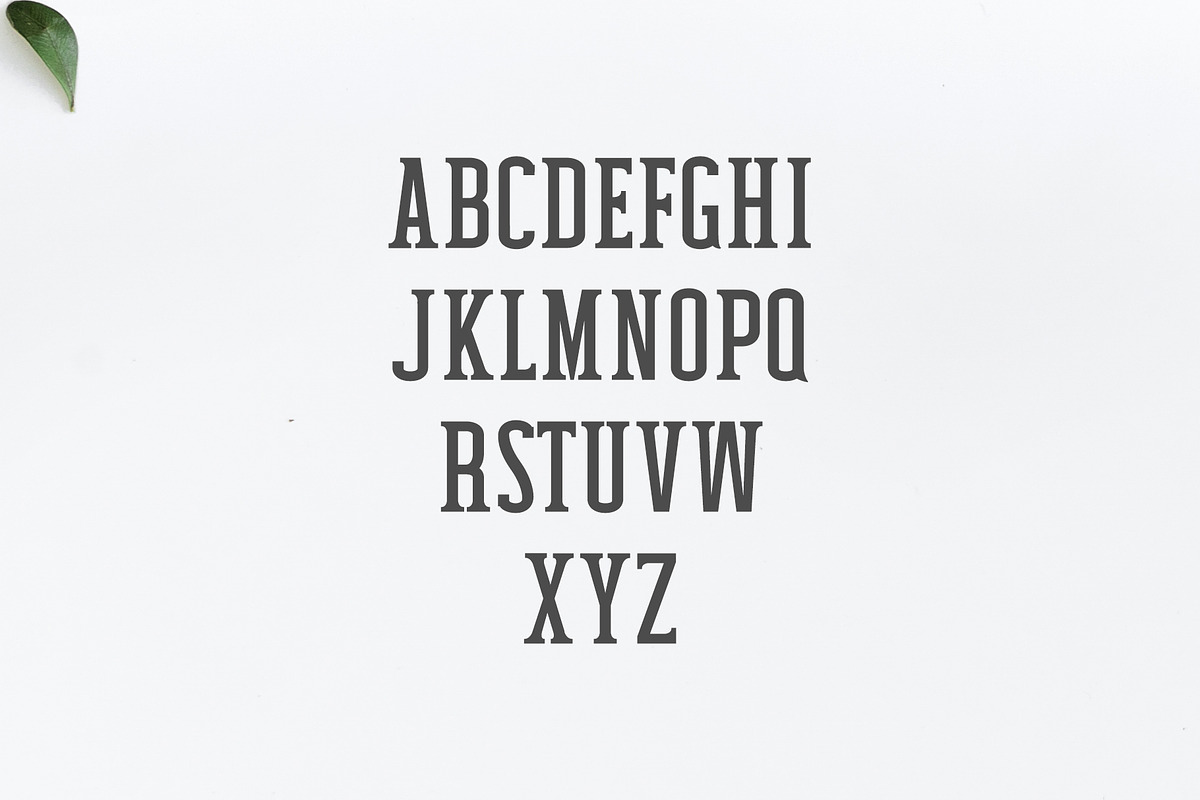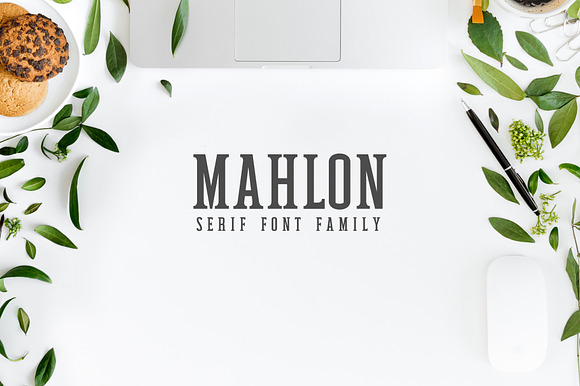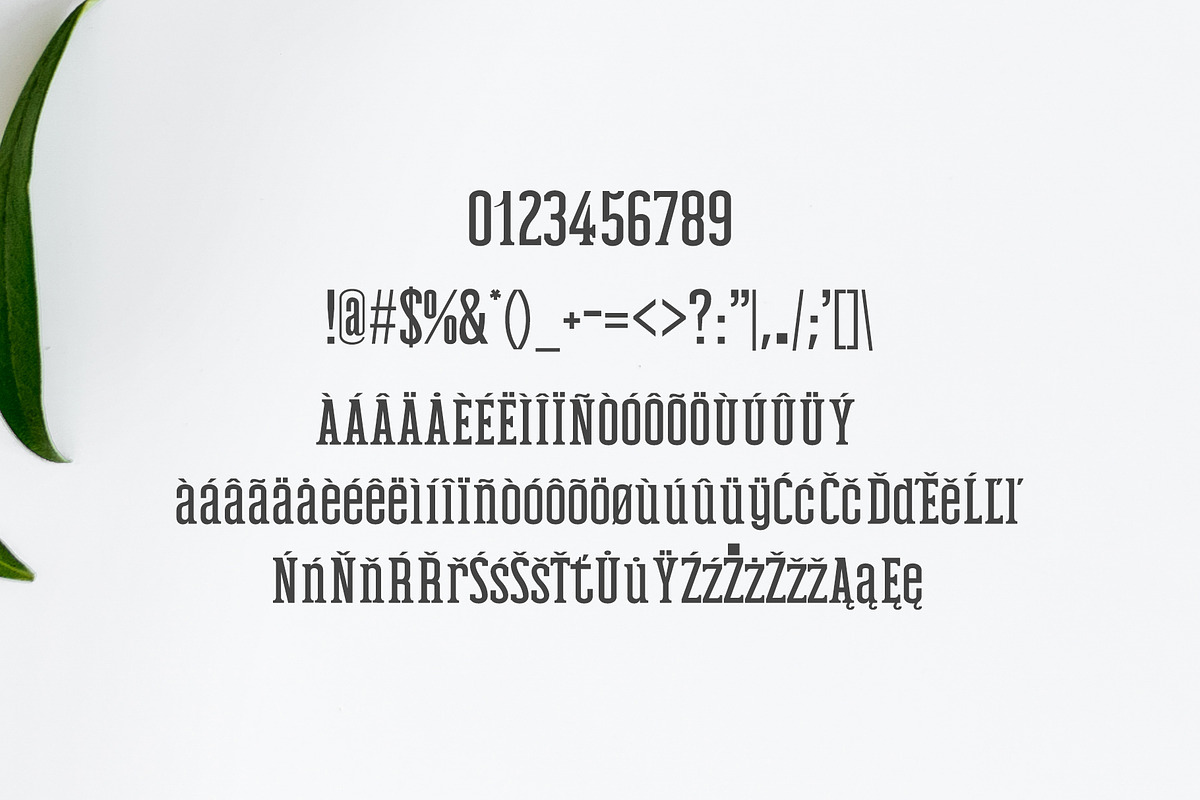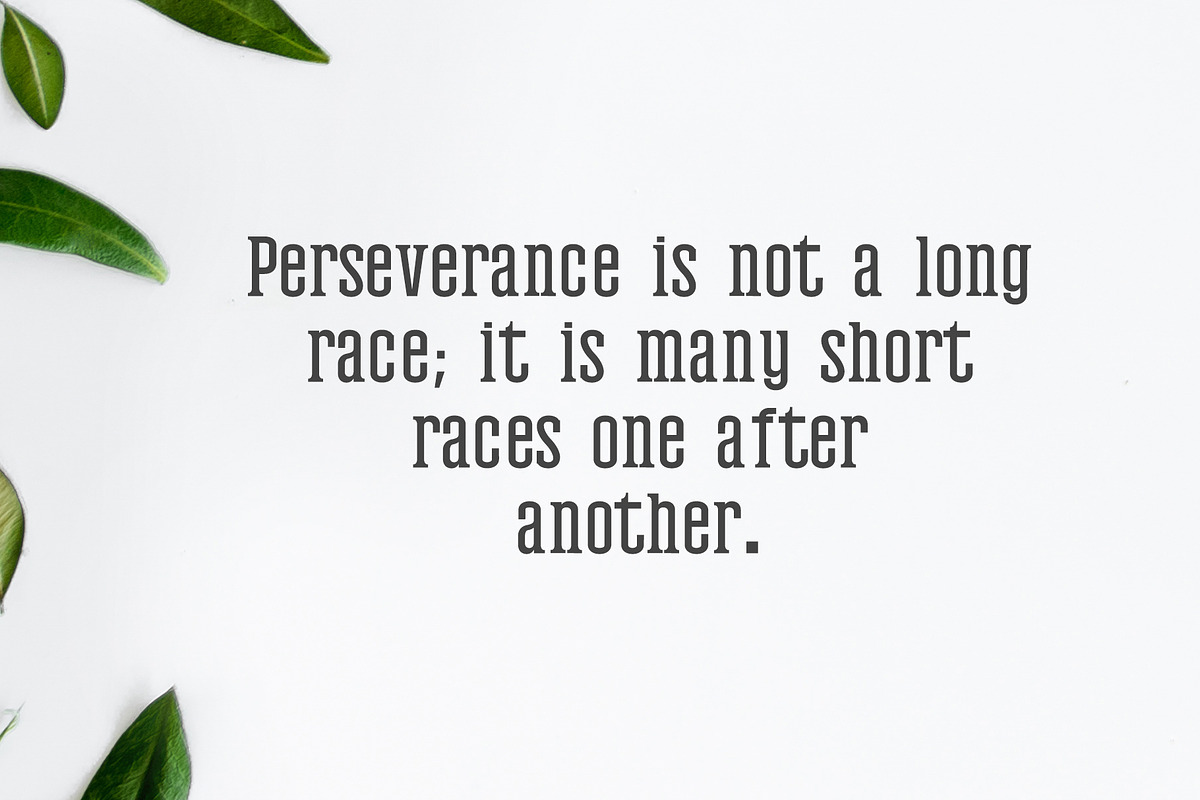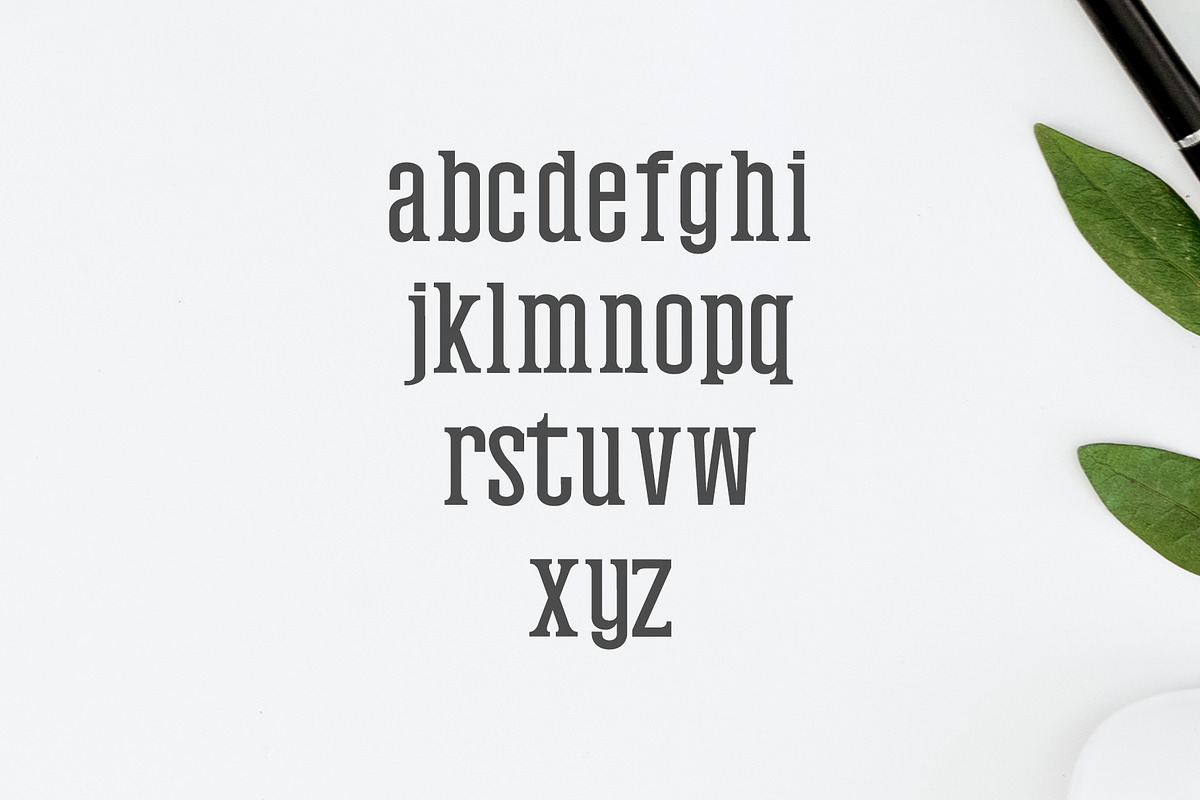
Mahlon Serif Font Family Pack
Mahlon is a beautiful minimal serif font with strong personality, that makes it perfect for use in the headline, wedding invitation, greeting cards, T-shirt, branding and logo projects, merchandise, social media posts, product packaging, or any design that you create.
Font Weight: Regular, Thin and Light
Mahlon Font Features:
Numbers and Punctuation